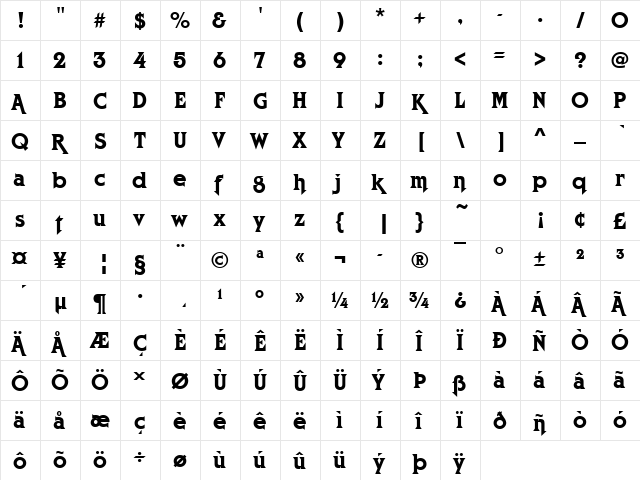
URWCopernicusAltD Regular
Design Context for URWCopernicusAltD Typeface
URWCopernicusAltD takes a measured approach to typography — its balanced proportions and neutral character make it a reliable workhorse for both digital and print work.